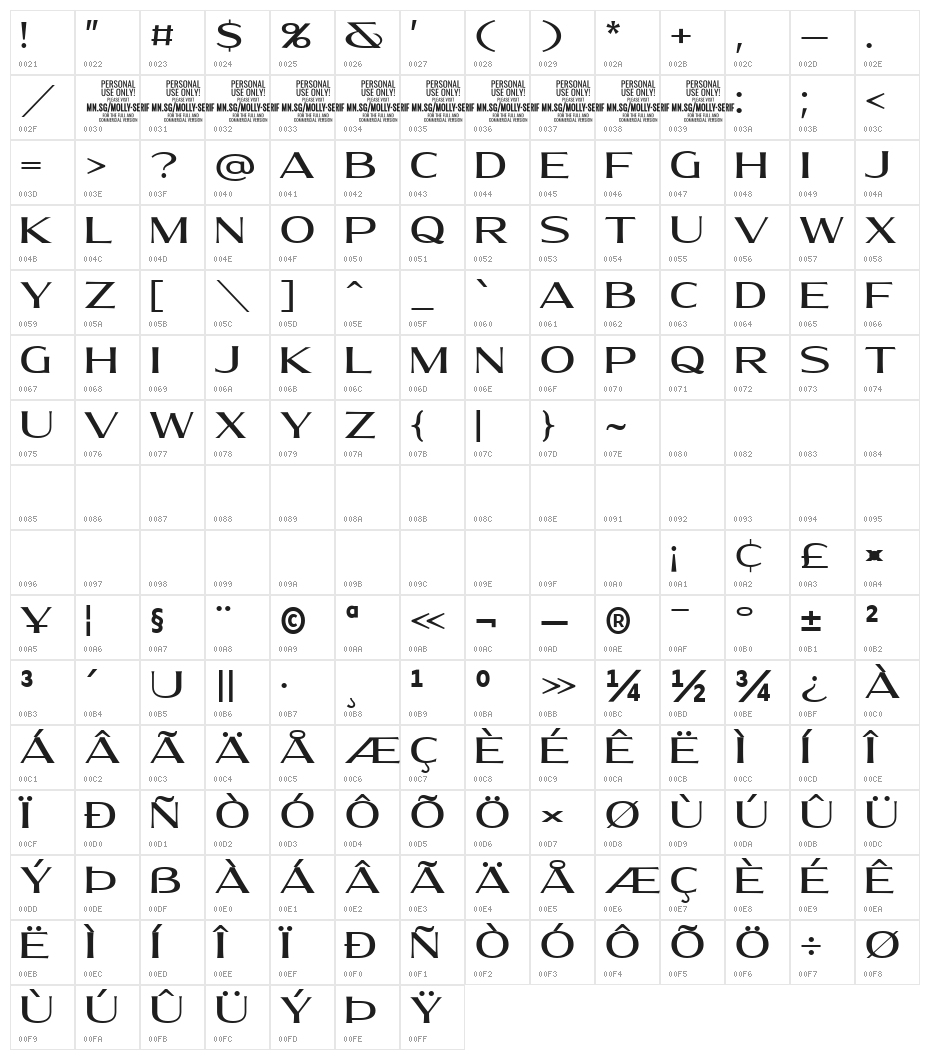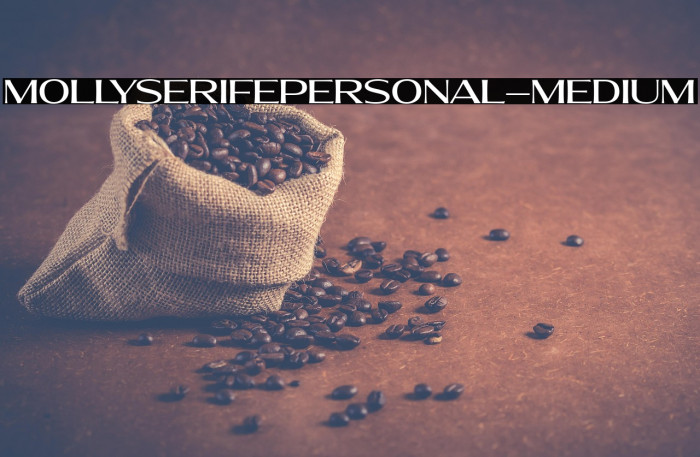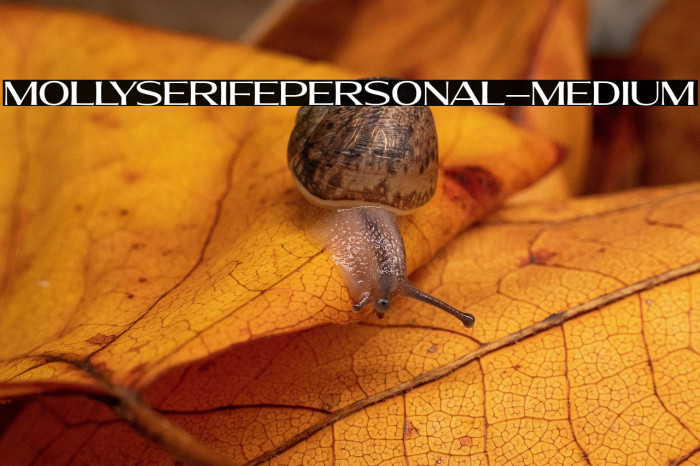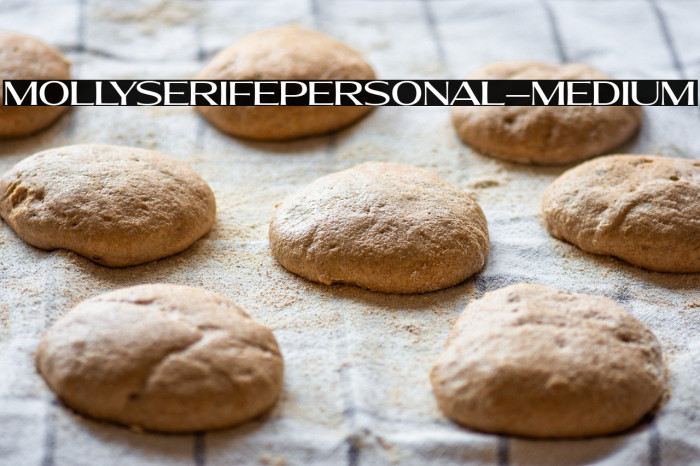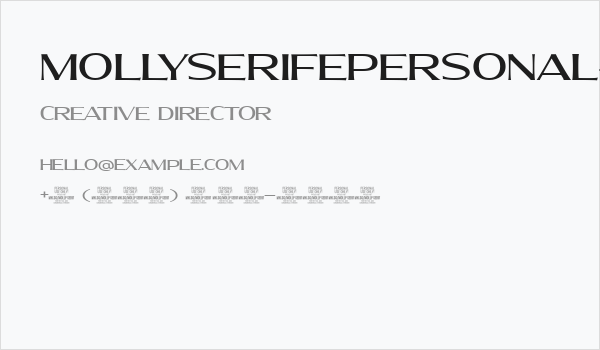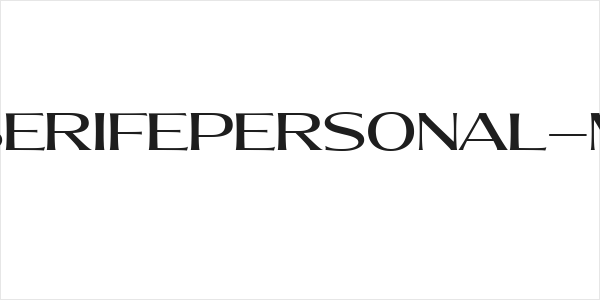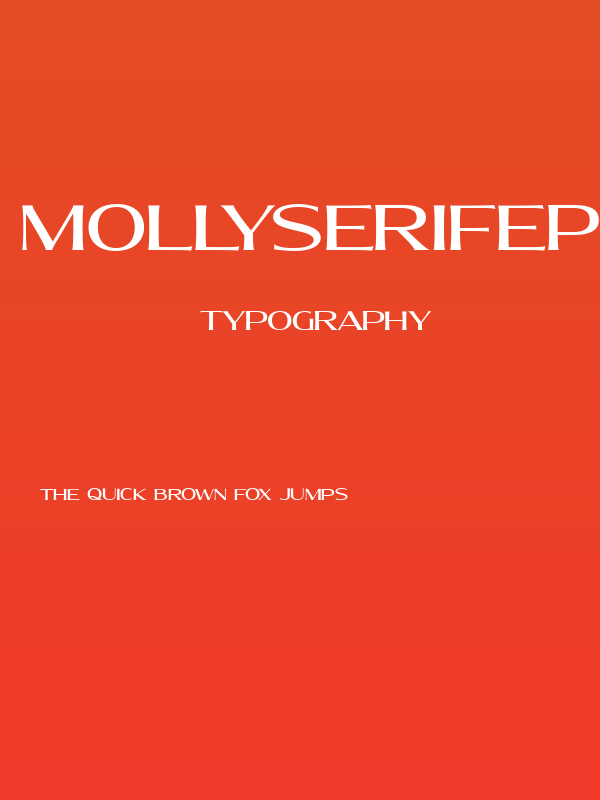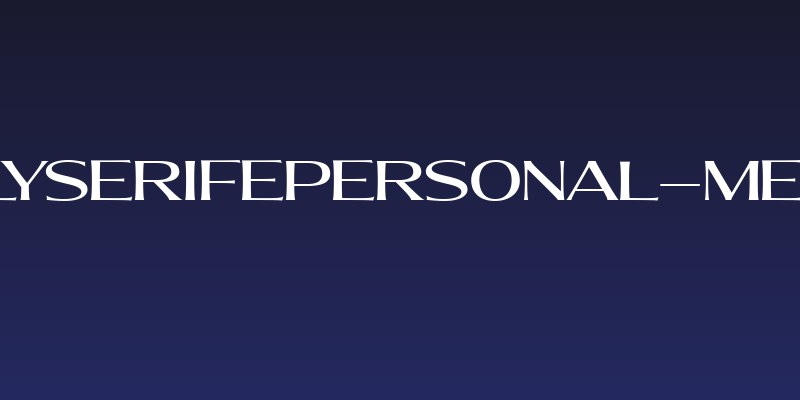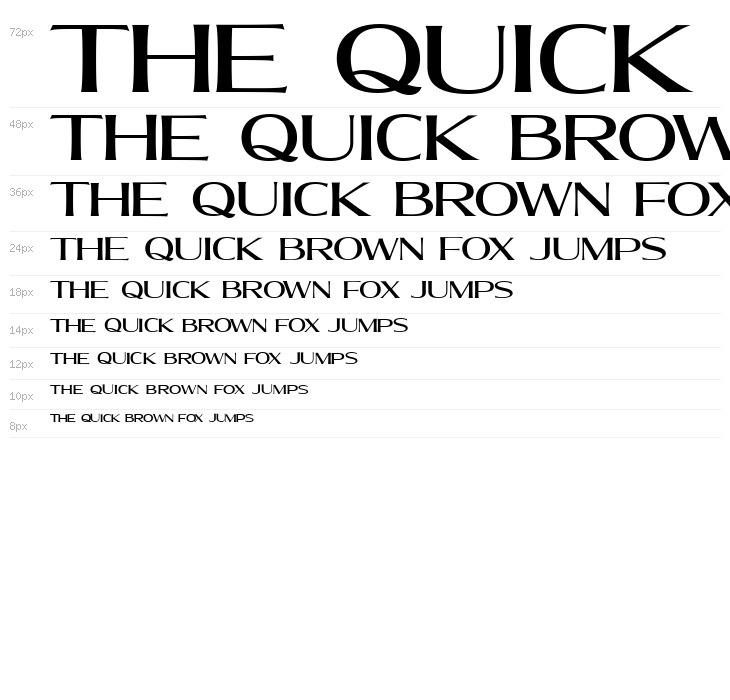
MollySerifEPERSONAL-Medium Font
MollySerifEPERSONAL-Medium Description
This font exhibits a distinctive serif style with a modern twist. The characters are elegantly crafted with sharp, angular serifs that give a sense of sophistication and formality. The uppercase letters are bold and commanding, while the lowercase letters maintain a consistent style that complements the overall design. The numerals and special characters are designed to match the font's unique aesthetic, making it versatile for various uses. The font's medium weight provides a balanced appearance, suitable for both headlines and body text. Its character spacing is normal, ensuring readability without compromising on style. The contrast in stroke thickness is medium, adding depth and dimension to each character.
| Proposed Projects | Ideal for branding, editorial design, and formal invitations. |